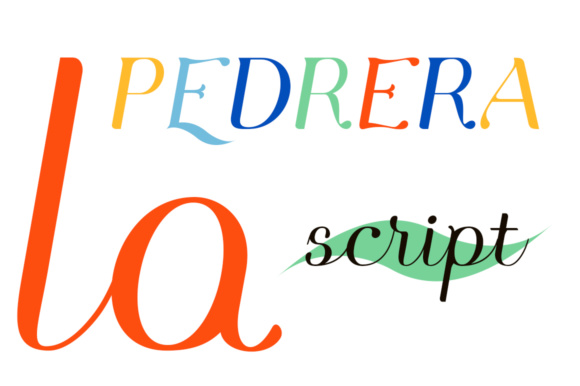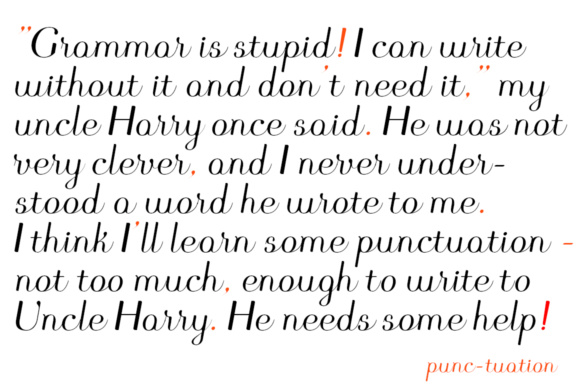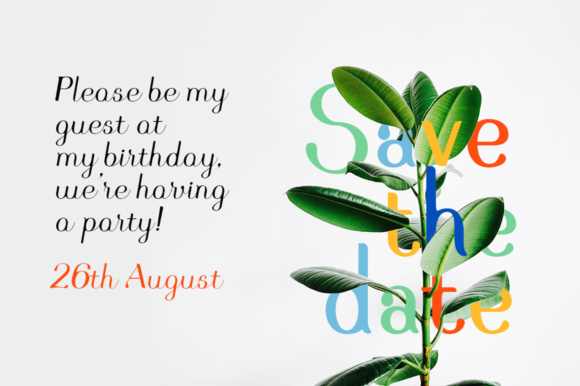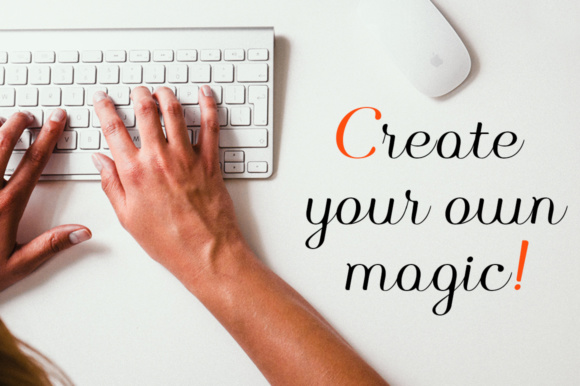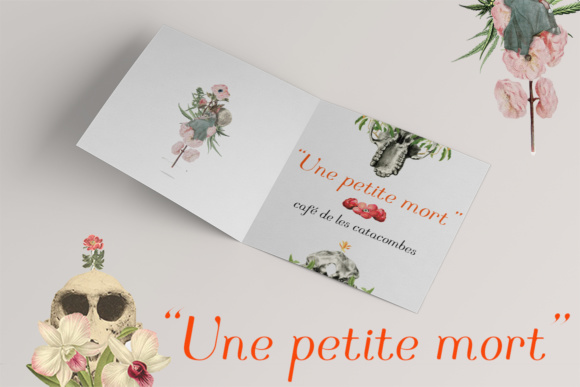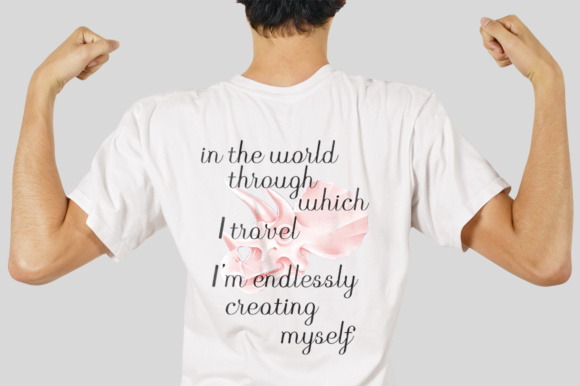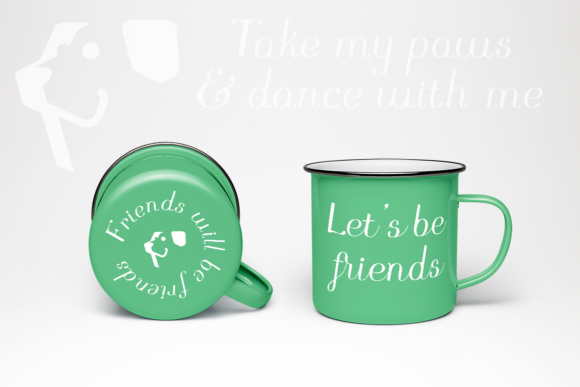
Pedrera Font
About Pedrera Font
Pedrera is a bold and casual vintage typeface, perfect for giving your designs an organic and approachable feel. This font looks great in both vintage and modern designs, and adds an editorial vibe to your work.